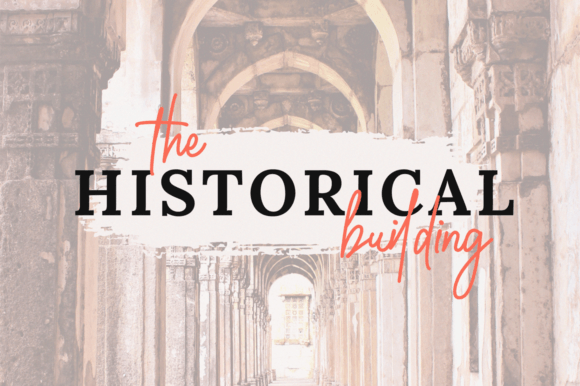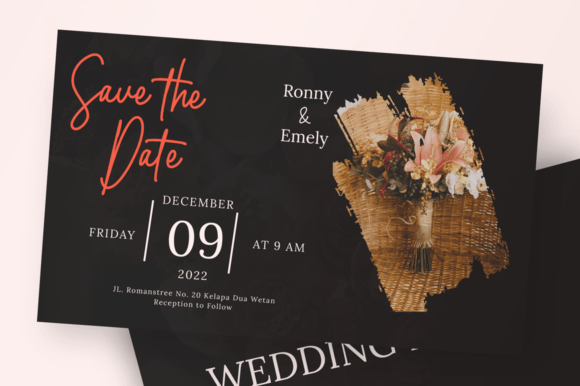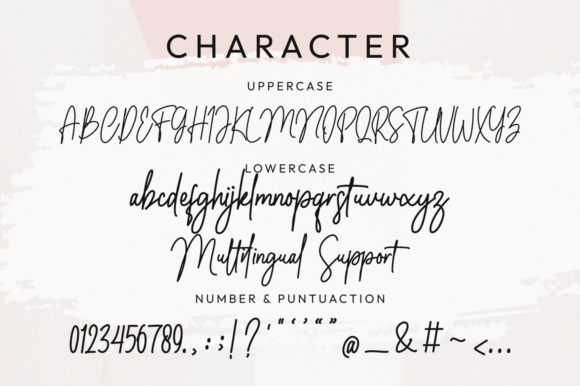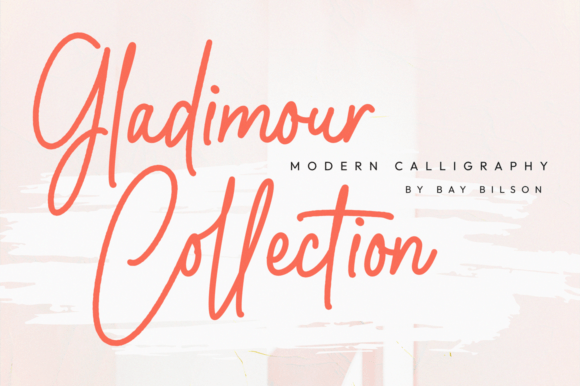
Introducing Gladimour Font: The Ultimate Elegant Handwritten Font
Are you a designer or crafter looking for a font that exudes charm and elegance? Look no further than Gladimour Font! This beautiful handwritten font is perfect for adding a touch of sophistication to any design project. In this article, we’ll take a closer look at Gladimour Font and explore its features, uses, and benefits.
A Font that Feels Equally Charming and Elegant
Gladimour Font is a stunning handwritten font that feels equally charming and elegant. Its unique and flowing script makes it perfect for designs that require a personal touch. Whether you’re creating wedding invitations, thank you cards, quotes, or greeting cards, Gladimour Font is sure to impress.
Gladimour Font is versatile and can be used for a wide range of design projects. Some of the most popular uses for this font include:
- Quotes and inspirational messages
One of the best features of Gladimour Font is that it is PUA (Private Use Area) encoded. This means that you can access all of the glyphs and ligatures with ease. PUA encoding allows you to use the font’s extended character set, including swashes, alternates, and ornaments, to create unique and eye-catching designs.
Gladimour Font offers a range of benefits for designers and crafters, including:
- Elegant and charming appearance
- Versatile and can be used for a wide range of design projects
- Perfect for adding a personal touch to designs
- Can be used to create unique and eye-catching designs
Here are a few tips and inspiration ideas for using Gladimour Font:
- Use Gladimour Font to create beautiful wedding invitations and stationery
- Add a personal touch to your designs with the font’s glyphs and ligatures
- Experiment with different colors and textures to create unique designs
- Use Gladimour Font to create eye-catching logos and branding materials